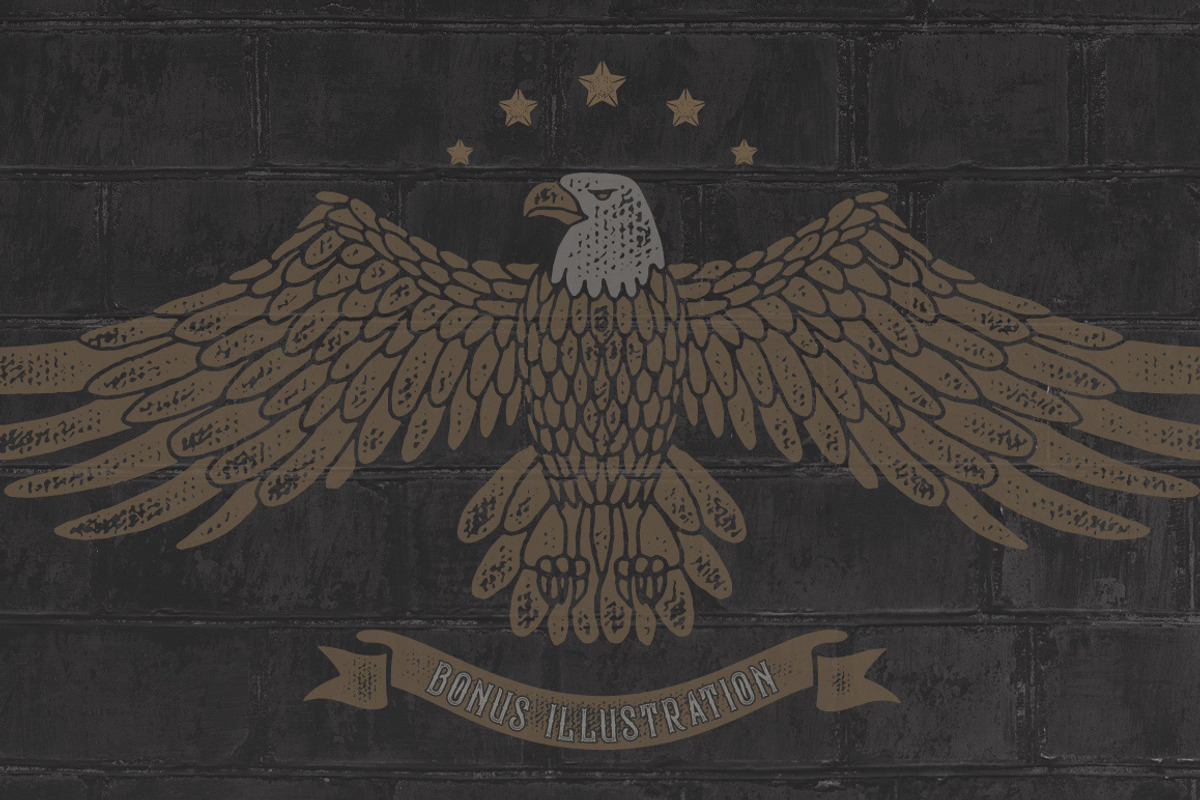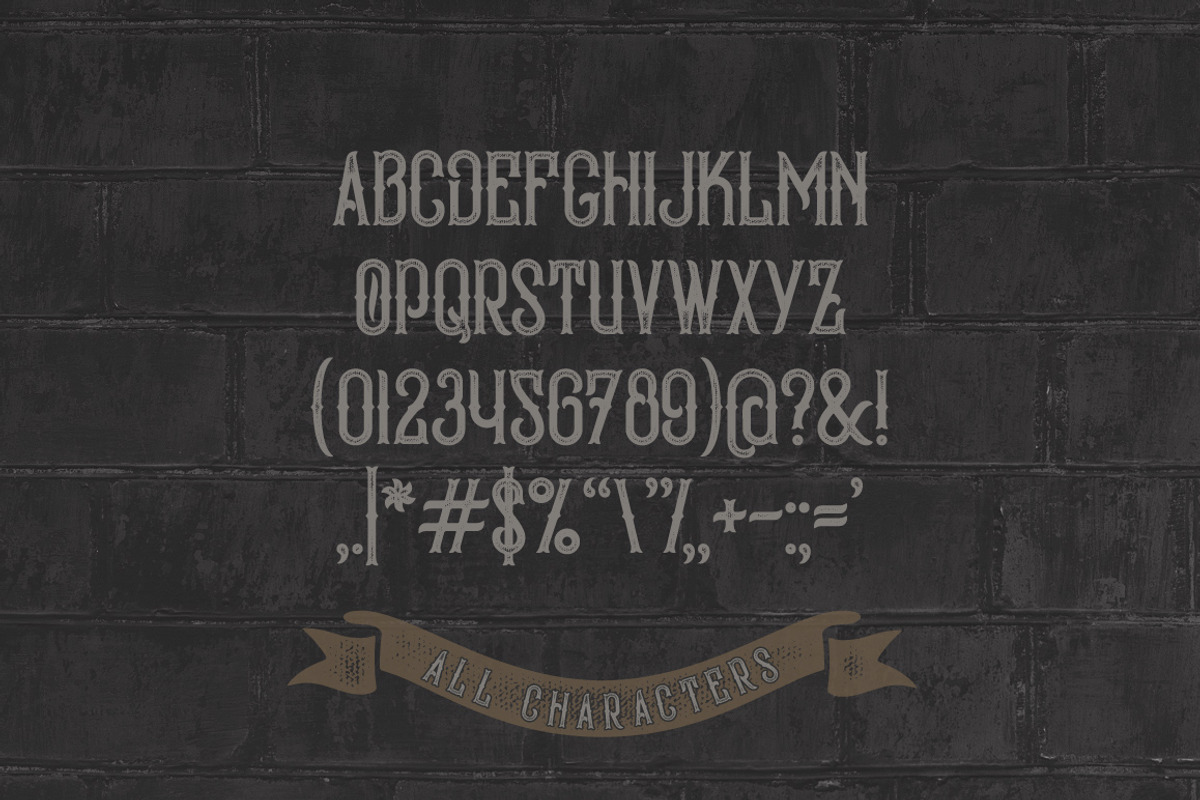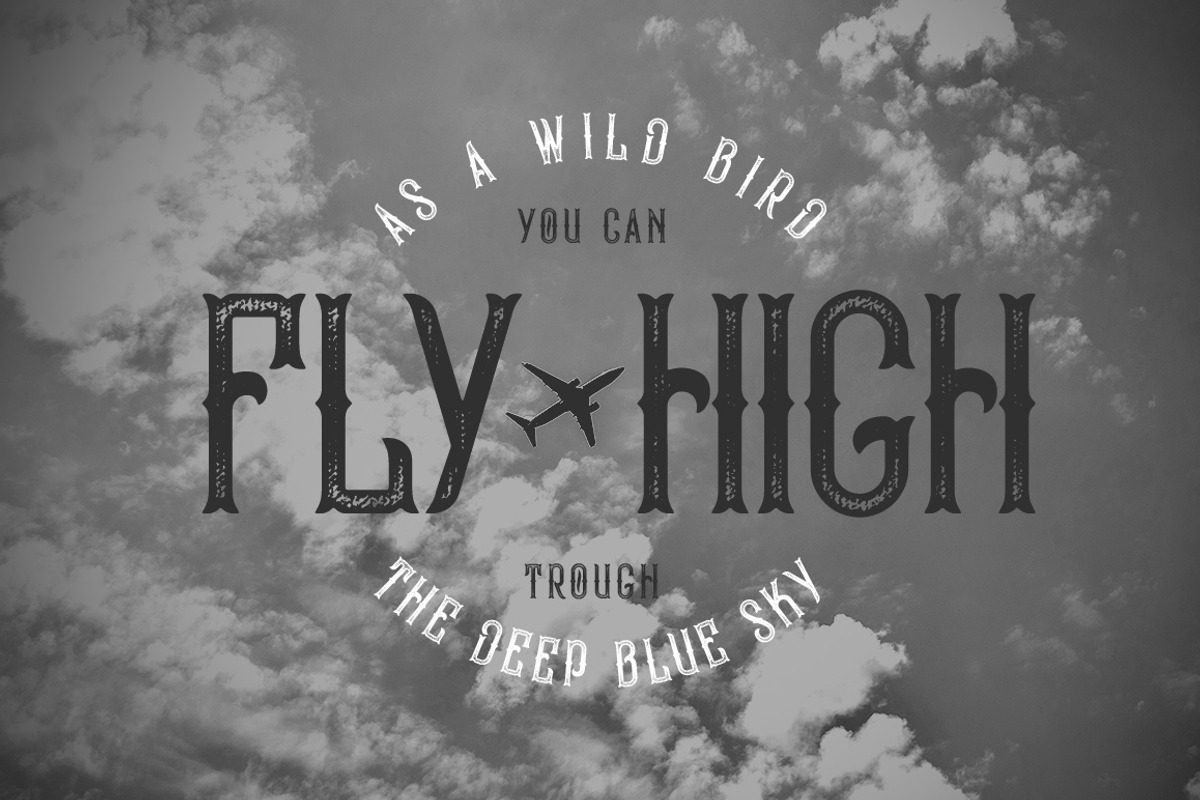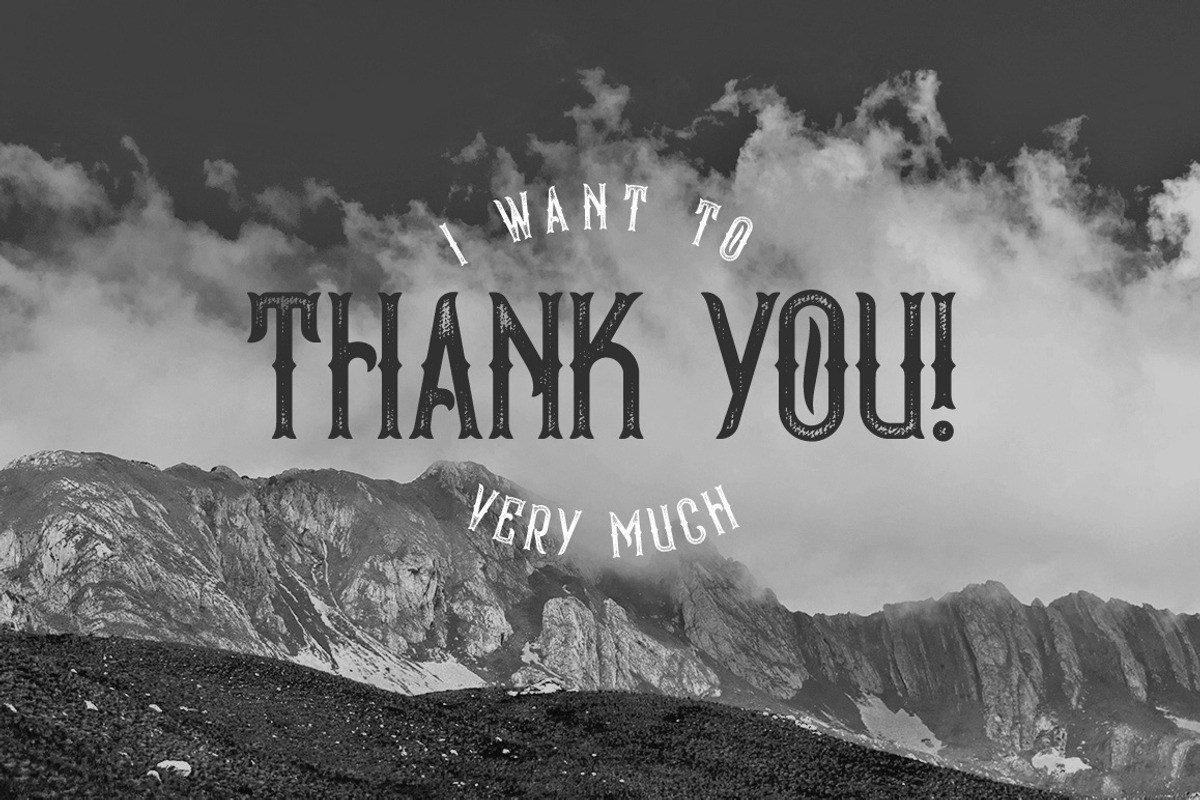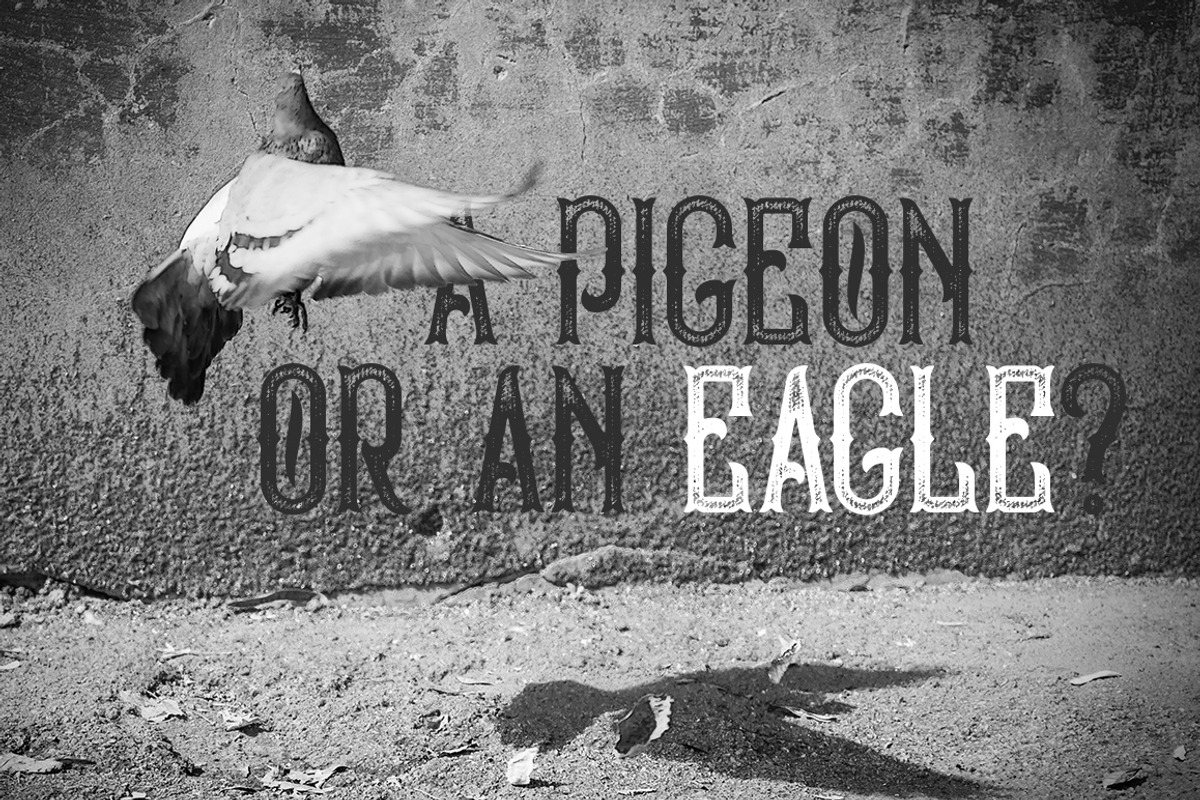
Bald Eagle Typeface
Bald Eagle Typeface by Gleb Guralnyk is a font selected for branding, posters, packaging, typography.
Why Bald Eagle Typeface is worth a look
Bald Eagle Typeface by Gleb Guralnyk fits naturally into Branding, posters, packaging, typography.